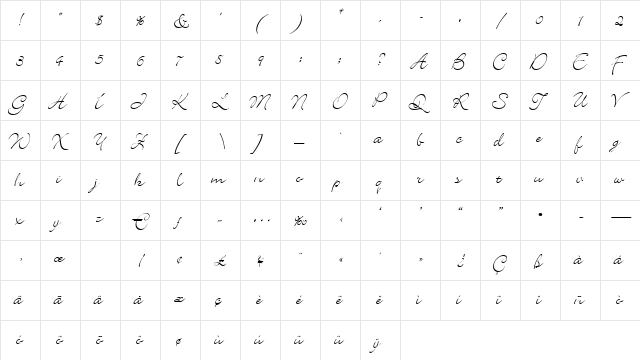
Kolibri Regular
Design Context for Kolibri Typeface
Kolibri is a composed and adaptable typeface that performs quietly and consistently across a wide range of design contexts.